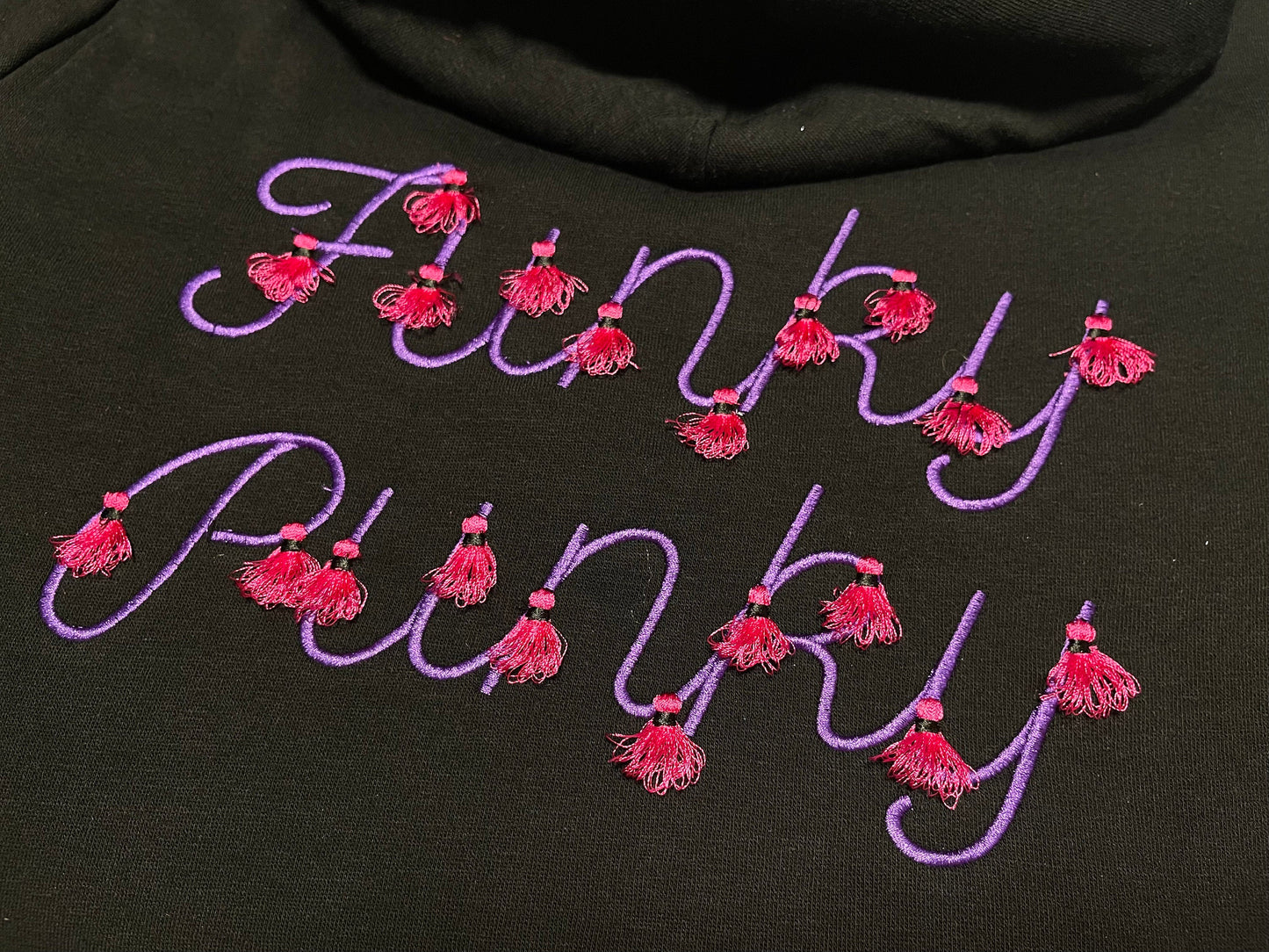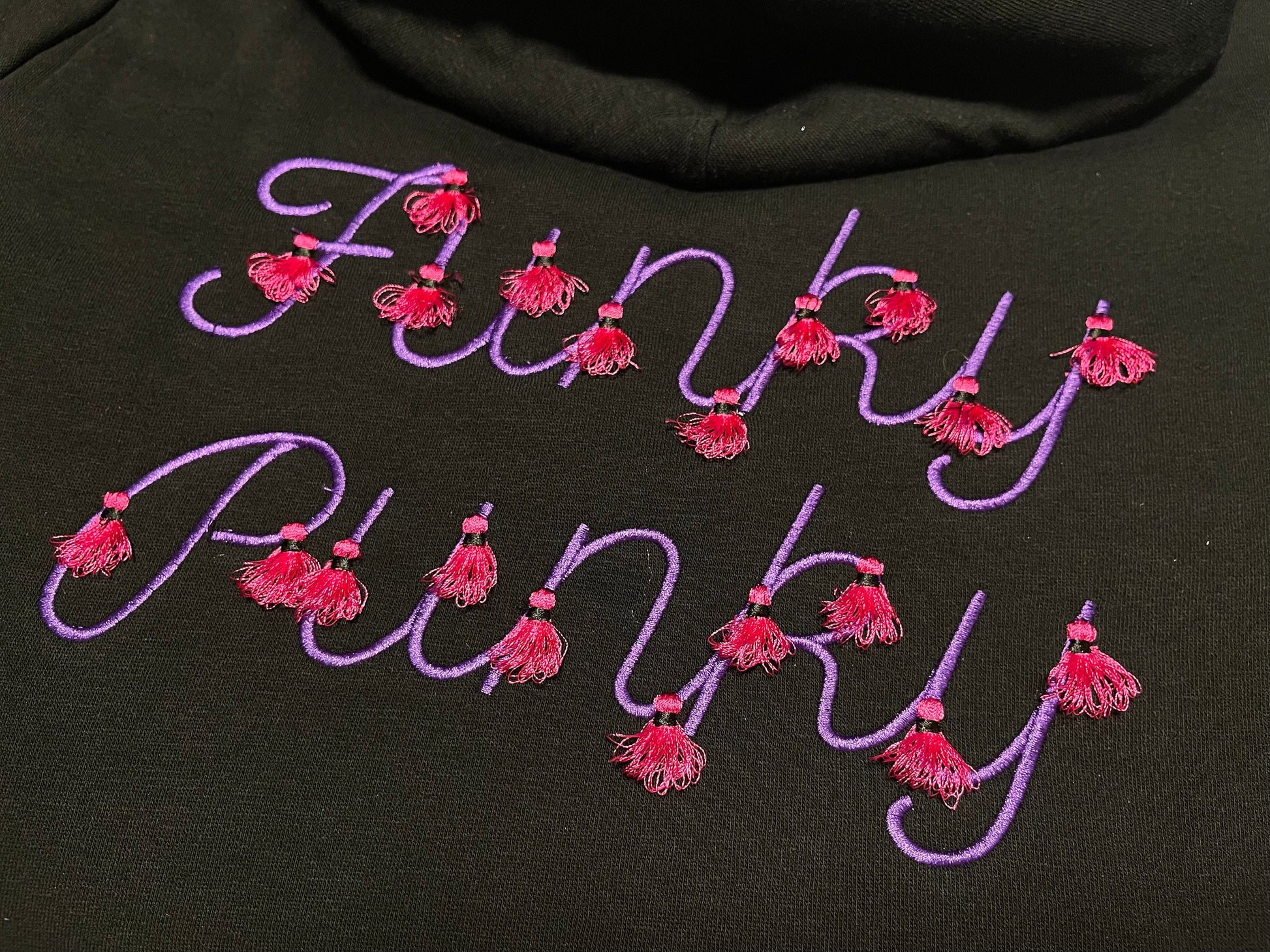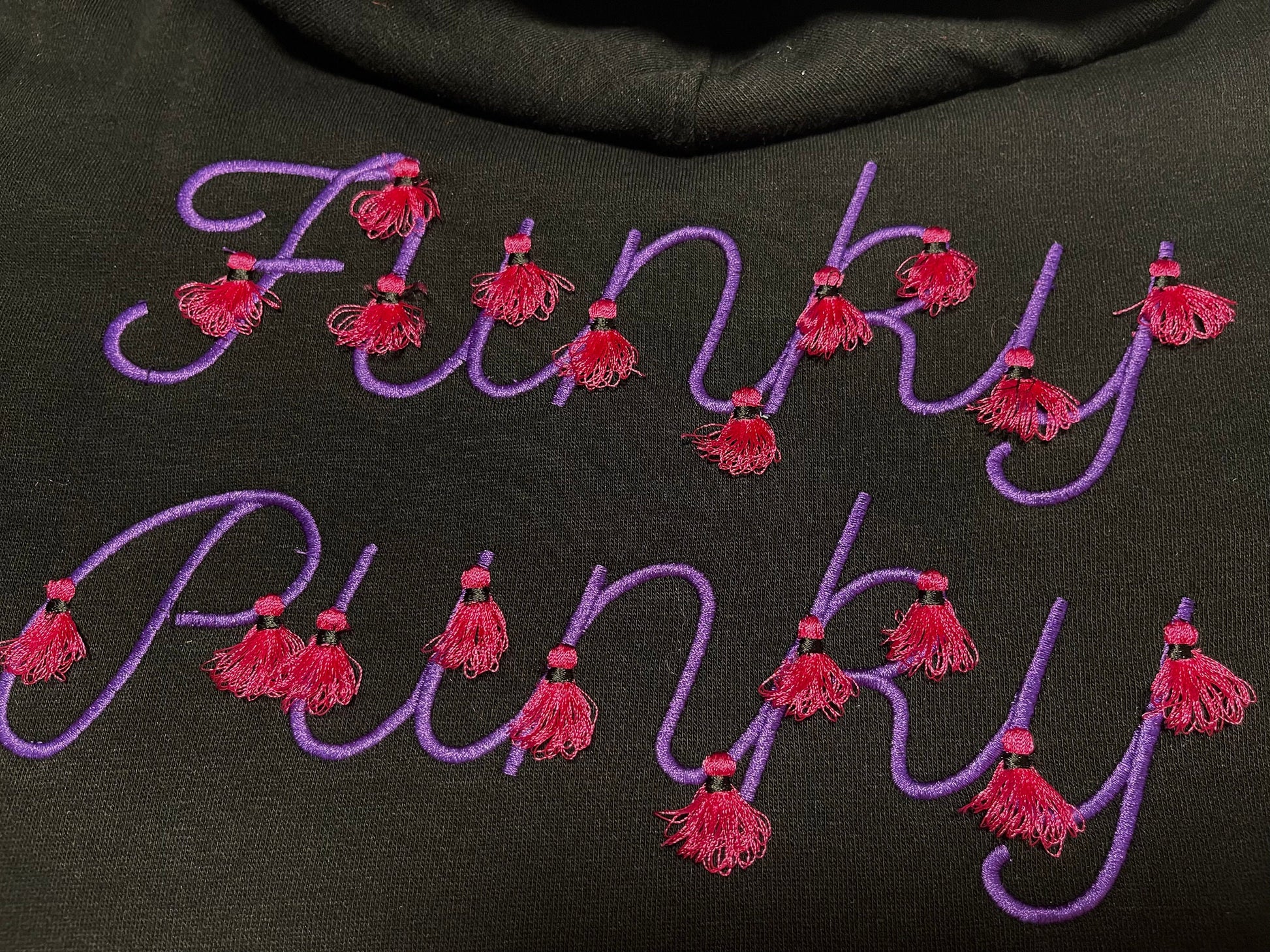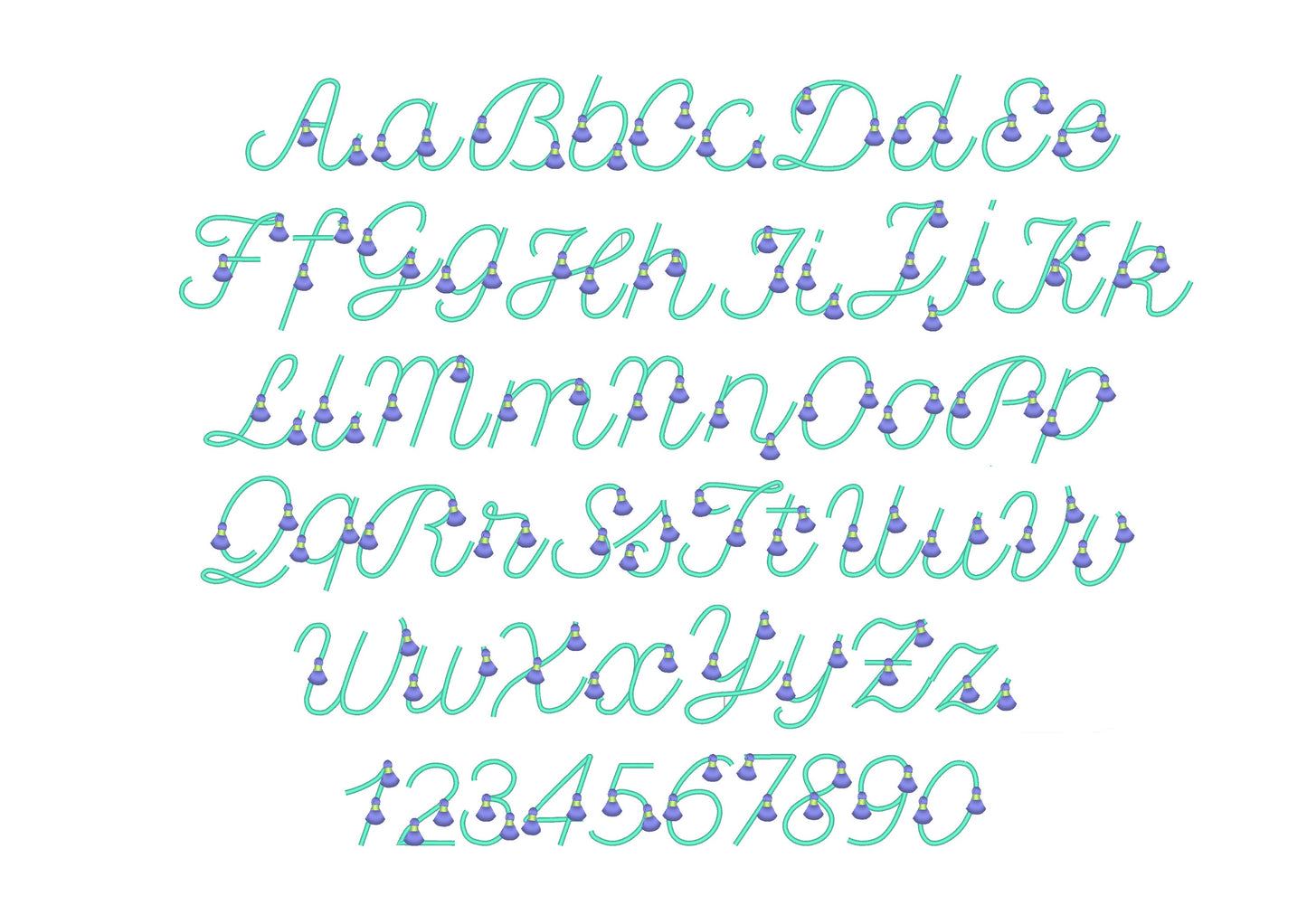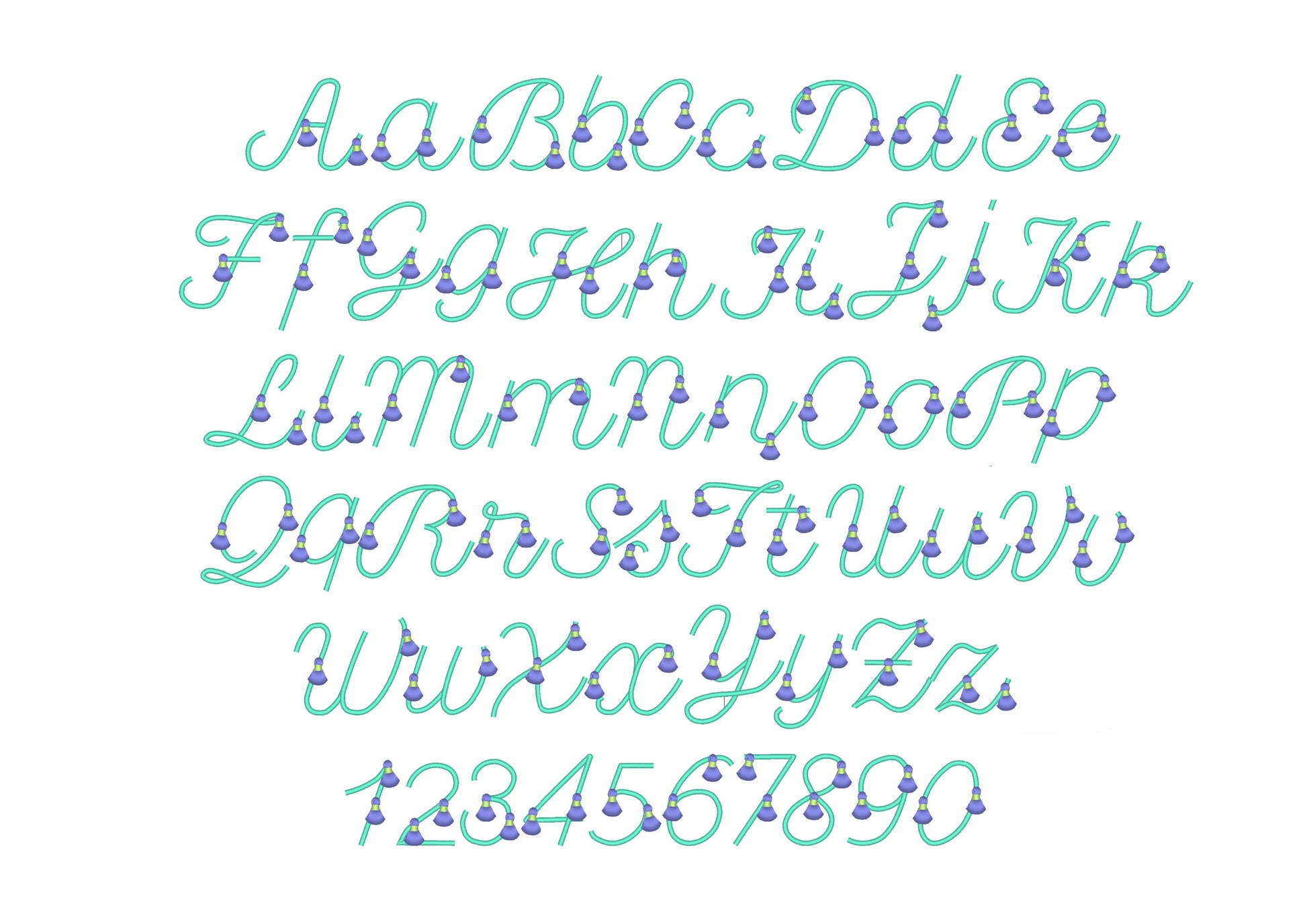
Fringed Tassels Fiesta Font Line Satin Stitch Alphabet
Every tassel can be fringed, and a hidden tack seam keeps the fringe safe to wash. Uppercase and lowercase letters and numbers in six sizes: 1, 1.2, 1.6, 2, 2.3 and 2.8 inches.
- Fringed tassel fiesta font
- Uppercase, lowercase, numbers 0-9
- 6 sizes, 1 to 2.8 in